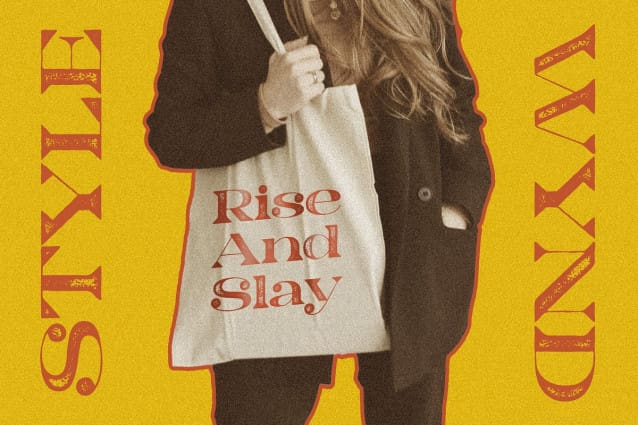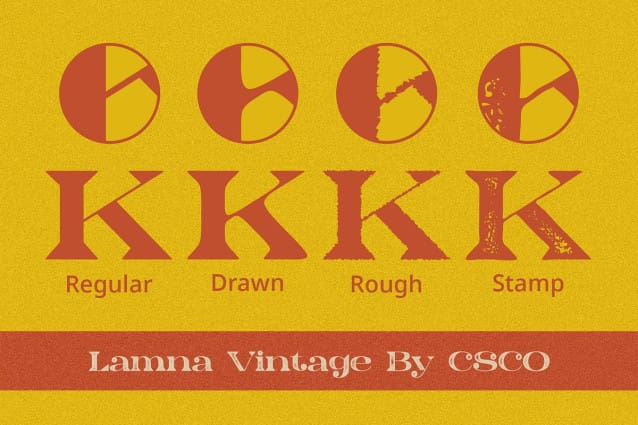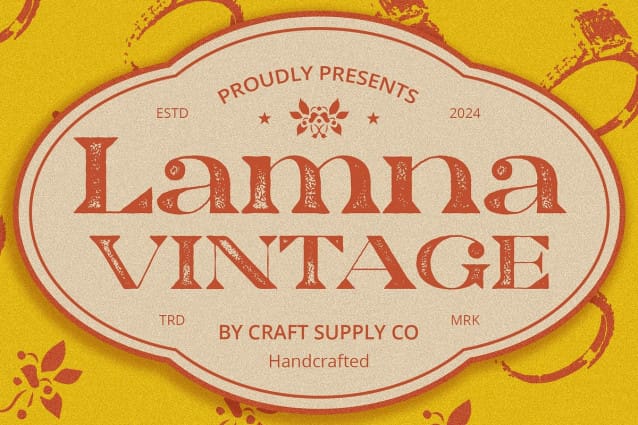
Lamna Vintage Font
Lamna Vintage Font: Evoking Vintage Charm. Distinctive Serif Design Lamna Vintage features a striking display of high-contrast serifs and wedge-shaped accents. Its unique serif style commands attention and adds a touch of elegance to any design project.
Vintage Appeal with Stamp Rough Effect Infused with a stamp rough effect, This font exudes a nostalgic vintage charm. The rough texture adds character and authenticity, reminiscent of classic printed materials from yesteryears.
Ideal for Retro-Inspired Projects Tailored for retro-inspired designs, This font is the perfect choice for projects seeking to evoke a sense of nostalgia. From posters to packaging, its vintage aesthetic lends a timeless appeal to any application.
Versatile and Impactful Despite its vintage-inspired design, This font remains versatile and impactful across various design contexts. Whether used in branding, editorial layouts, or digital platforms, its unique serif style leaves a lasting impression.
In Summary: Lamna Vintage – Capturing the Essence of Nostalgia This font captures the essence of nostalgia with its distinctive serif design and stamp rough effect. Perfect for retro-inspired projects, this font adds a touch of vintage charm and authenticity to any design endeavor. Experience the allure of this font and embark on a journey to the past with every letter.